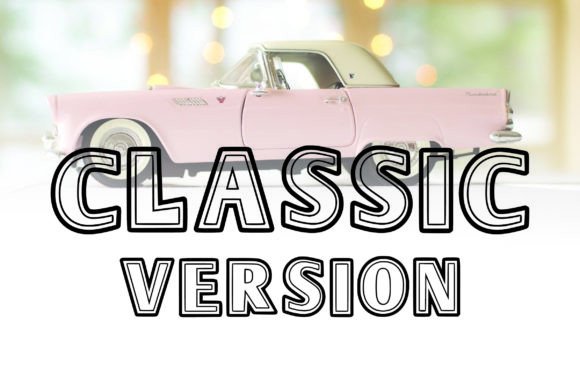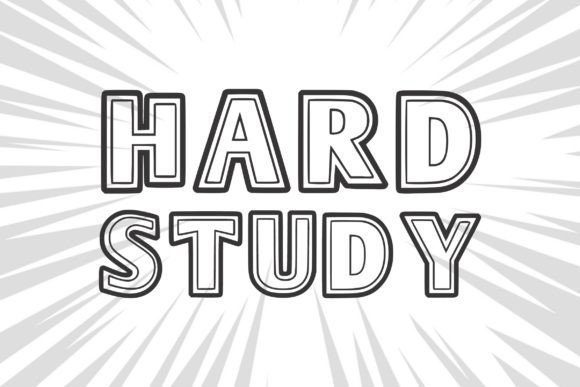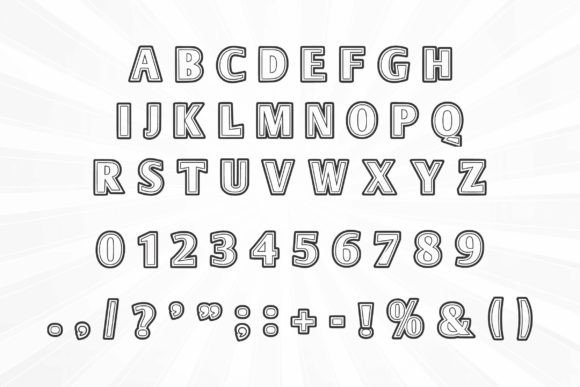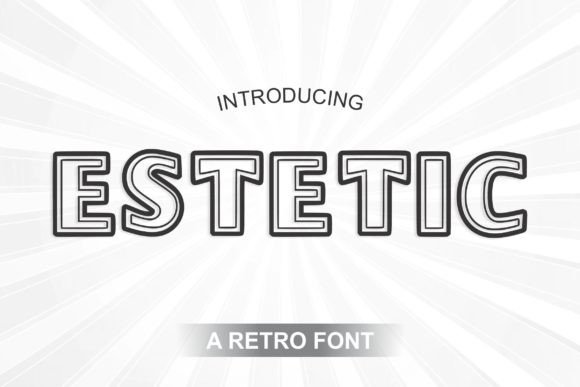
Introducing Estetic Font: Elevate Your Creative Projects with a Retro Aesthetic
Are you a designer, crafter, or DIY enthusiast looking for a unique and eye-catching font to make your projects stand out? Look no further than Estetic Font, a retro aesthetic display font that’s perfect for a wide range of creative applications. From t-shirts and stickers to book covers, children’s books, social media posts, and invitations, Estetic Font is the ideal choice for anyone seeking to add a touch of nostalgia and style to their work.
What is Estetic Font?
Estetic Font is a carefully crafted display font that embodies the spirit of retro aesthetics. Its distinctive design combines classic elements with a modern twist, making it perfect for projects that require a unique and attention-grabbing look. With Estetic Font, you can add a touch of vintage charm to your work, making it instantly stand out from the crowd.
Key Features of Estetic Font
- Retro Aesthetic: Estetic Font boasts a distinctive retro aesthetic that’s perfect for designers and crafters looking to create unique and eye-catching projects.
- Highly Versatile: This font is suitable for a wide range of applications, including t-shirts, stickers, book covers, children’s books, social media posts, invitations, and more.
- Easily Readable: Despite its decorative nature, Estetic Font remains easily readable, making it perfect for both headlines and body text.
Estetic Font is an excellent choice for designers and crafters who want to add a personal touch to their work. Whether you’re creating custom apparel, home decor items, or promotional materials, this font will help you achieve a unique and professional look. Here are some ideas for using Estetic Font in your projects:
- T-Shirts and Apparel: Create eye-catching custom t-shirts, hoodies, and other apparel items with Estetic Font.
- Stickers and Labels: Use Estetic Font to create custom stickers, labels, and decals for your products or promotions.
- Book Covers and Children’s Books: Add a touch of whimsy and charm to your book covers and children’s books with Estetic Font.
- Social Media Posts: Make your social media posts stand out with Estetic Font, perfect for creating engaging and shareable content.
- Invitations and Stationery: Use Estetic Font to create unique and stylish invitations, greeting cards, and stationery.
Why Choose Estetic Font?
With so many fonts available, why choose Estetic Font? Here are just a few reasons why designers and crafters love this font:
- Unique and Eye-Catching: Estetic Font is a one-of-a-kind font that will make your projects stand out from the crowd.
- Easy to Use: This font is incredibly easy to use, even for those with limited design experience.
- High-Quality Design: Estetic Font is designed with high-quality and precision, ensuring that it looks great in any application.